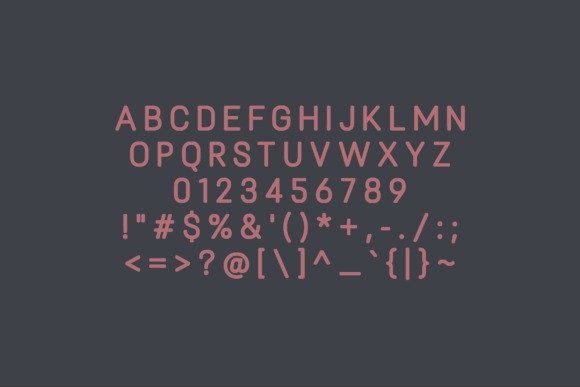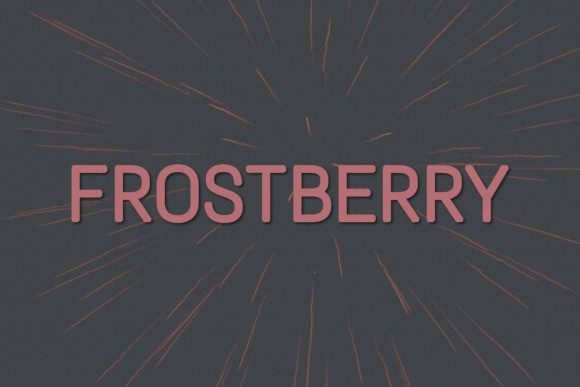
Frostberry Font
Frostberry Font is a sleek and stylish sans-serif font designed for modern digital and print applications.With its sharp geometry, clean lines, and subtle rounded corners, Frostberry offers the perfect blend of precision and softness. It features a complete uppercase character set, numerals, and essential punctuation—making it ideal for branding, headlines, UI design, product packaging, and editorial layouts. The font’s slightly condensed form enhances readability while maximizing space, making it a smart choice for minimalist or tech-focused design.
Whether used for bold titles or subtle subheadings, Frostberry brings a contemporary edge with a hint of character. Its versatile nature ensures it works beautifully across a wide range of styles and formats, from digital ads and websites to posters and modern logos.